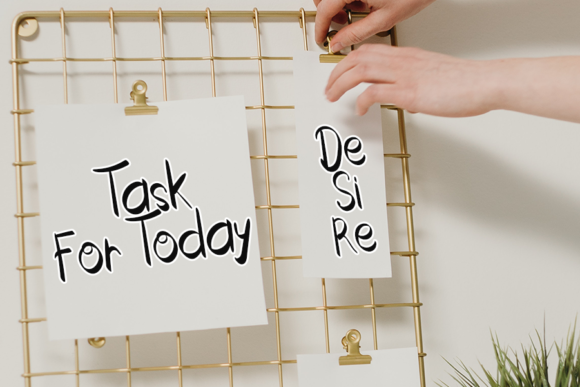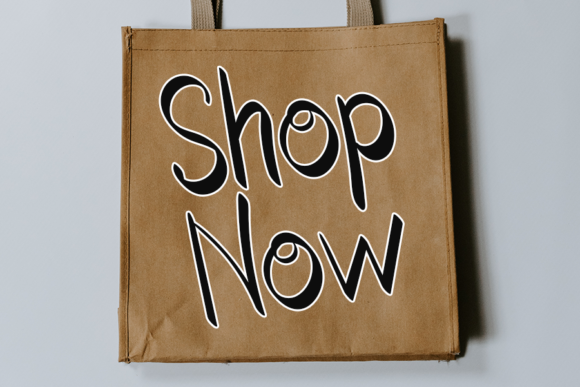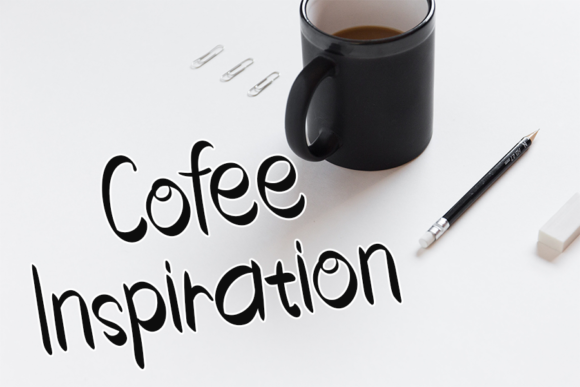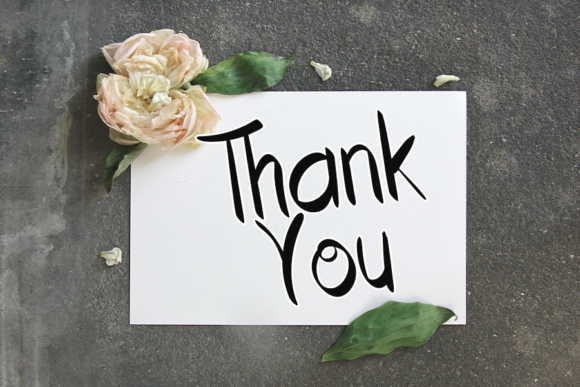
Discover the Sweet Charm of Bee Talk Font
As a designer, there’s nothing quite like the thrill of bringing a creative idea to life. You’re brainstorming, sketching, and experimenting with different fonts and styles until – voilà! – your vision starts to take shape. But sometimes, no matter how hard you try, your design just needs that special something to make it truly pop. This is where Bee Talk Font comes in – a delightful, handwritten font that’s perfect for adding a personal touch to your chalkboard quotes or teaching materials.
With its authentic look and feel, Bee Talk Font is a game-changer for designers. Whether you’re working on a project for a client or creating something for yourself, this font is sure to add a touch of warmth and personality to your design. Its versatility makes it a valuable addition to any designer’s toolkit, and its realistic feel will make your creations feel like they were hand-written just for the occasion.
Bee Talk Font Key Features
- Font Family: Bee Talk Font is a unique, handwritten font designed to mimic the style of handwritten notes.
- Unique Characteristics: The font features subtle imperfections, such as uneven letter spacing and slight variations in stroke width, giving it a natural, handwritten feel.
Bee Talk Font Review
I recently had the chance to work with the Bee Talk font, and I must say it’s a mixed bag. Here’s my honest review.
The Bee Talk font has a playful, whimsical feel to it that’s perfect for children’s books, cartoons, or any project that needs a touch of sweetness. The font is highly legible, even at smaller sizes, making it a great choice for digital applications.
Additionally, the font has a wide range of language support, including many non-Latin scripts, which is a big plus for designers working on international projects.
- Font size: While the font is legible at smaller sizes, it can look a bit clumsy at larger sizes. This might limit its use in headlines or titles.
- Design consistency: The font’s playful feel can be a bit inconsistent across different styles and weights. This might make it difficult to maintain a cohesive look across a project.
Overall, the Bee Talk font is a solid choice for designers looking for a playful, whimsical font. While it has some limitations, its legibility and wide language support make it a great option for a wide range of projects. With some careful planning and attention to detail, designers can get the most out of this font.
Getting the Most Out of Bee Talk Font
To get the most out of Bee Talk Font, consider the following tips:
- Use Bee Talk Font for creative and playful designs.
- Combine Bee Talk Font with other fonts for a unique and eye-catching look.
Bee Talk Font is commonly used for:
- Children’s books and educational materials.
- Advertising and marketing campaigns.
- Wedding invitations and party decorations.